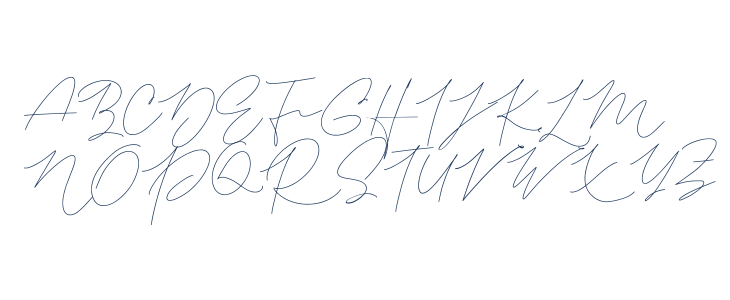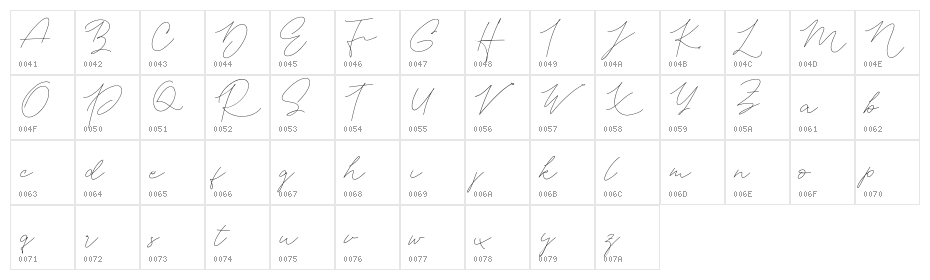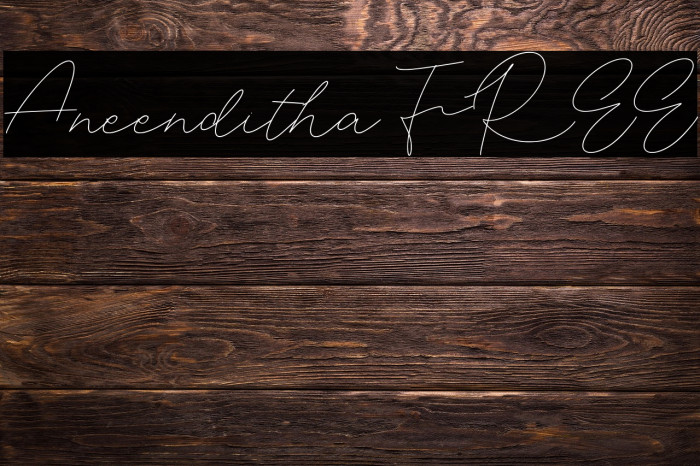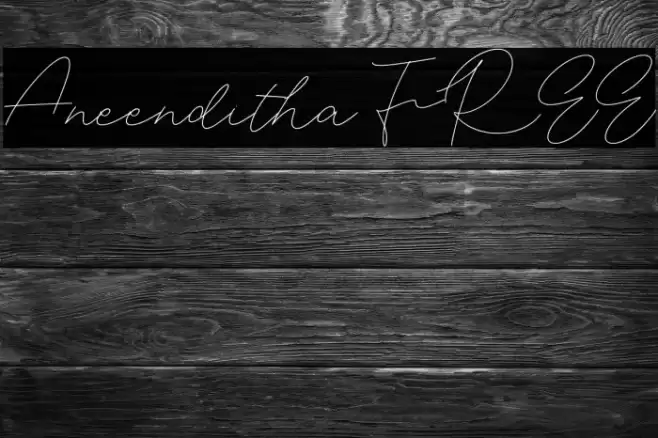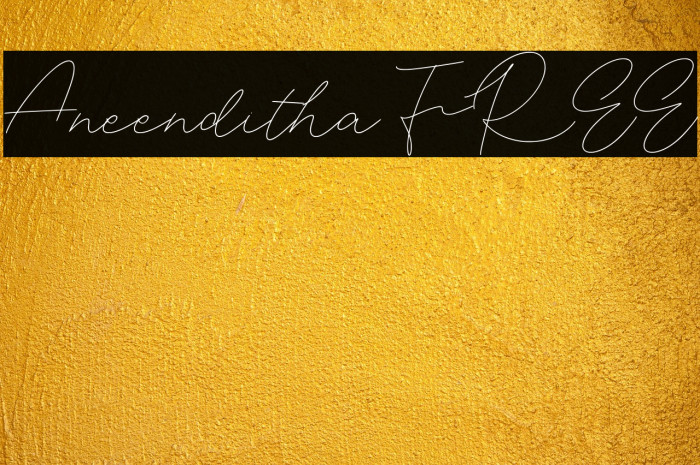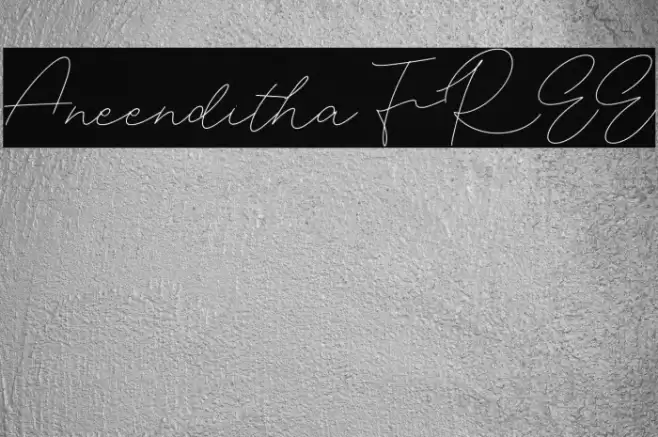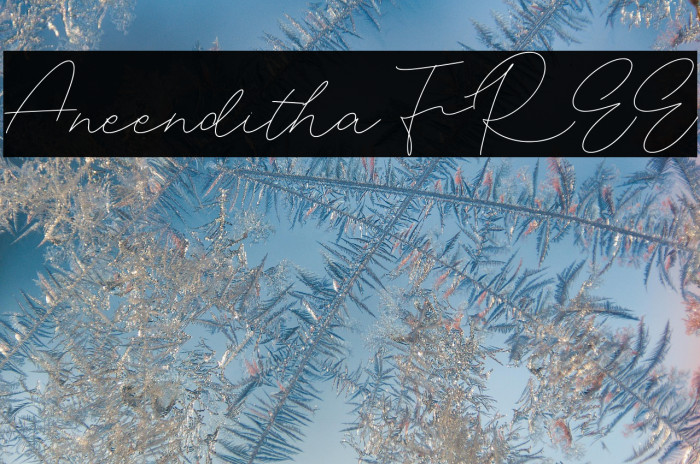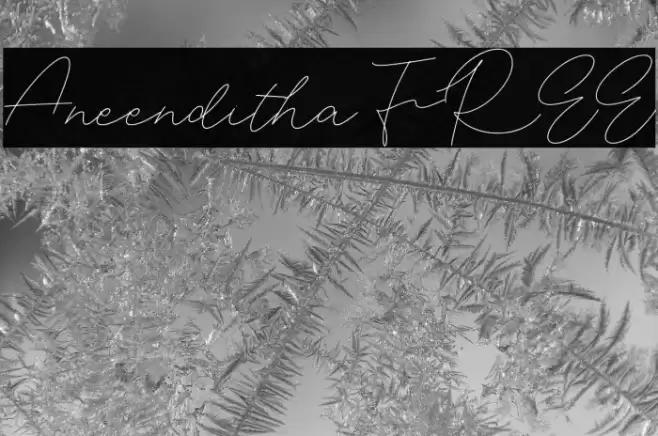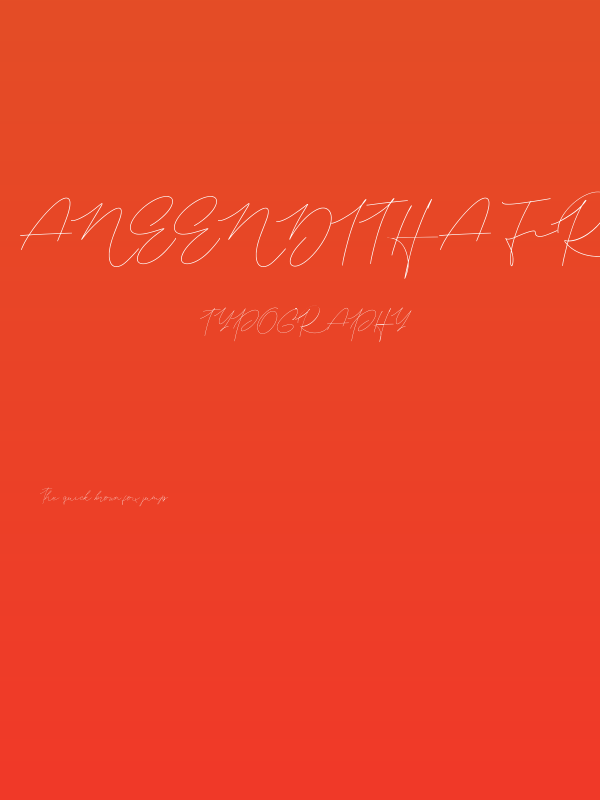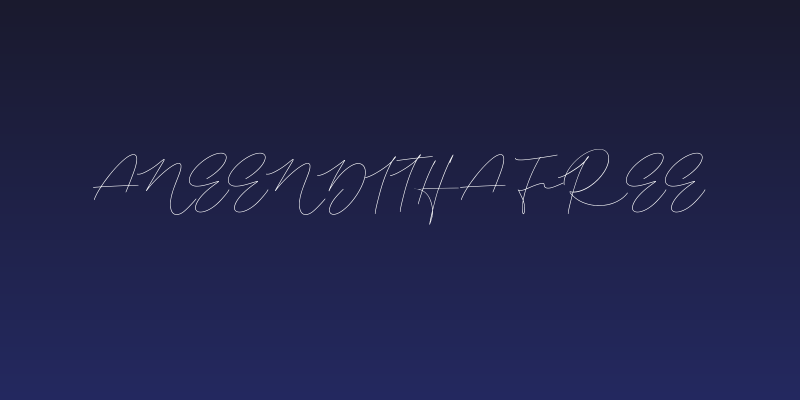
Aneenditha FREE Font
Aneenditha FREE Description
A delicate, monoline script font with a handwritten, cursive style. The characters are connected, featuring long ascenders and descenders, and a consistent thin stroke throughout. The overall appearance is airy and elegant, with generous spacing and fluid letterforms.
| Overall Style | Decorative, Elegant, Handwritten |
| Use Case | Logos, Invitations, Decorative headings |
| Proposed Projects | Wedding invitations, personal branding, greeting cards, quotes, elegant packaging. |